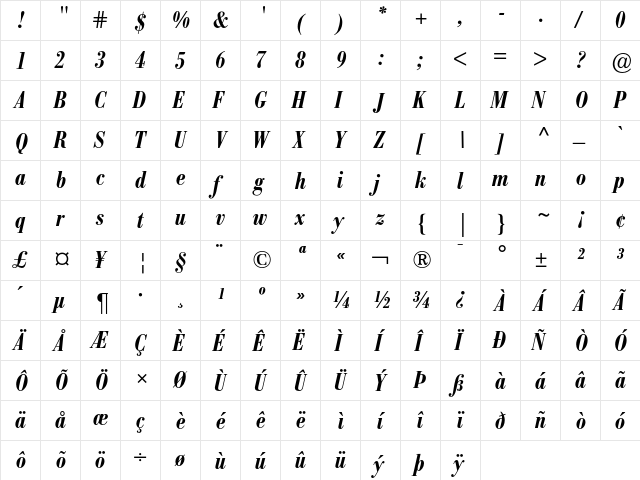
Bodoni BE Medium Condensed Italic
Design Context for Bodoni BE Typeface
Bodoni BE takes a measured approach to typography — its balanced proportions and neutral character make it a reliable workhorse for both digital and print work. The slanted form adds forward momentum and visual energy. The condensed width makes it efficient for tight spaces without sacrificing legibility.
Pro Tip: Use Bodoni BE for emphasis, pull quotes, and subheadings where its slanted energy can add rhythm to the layout.